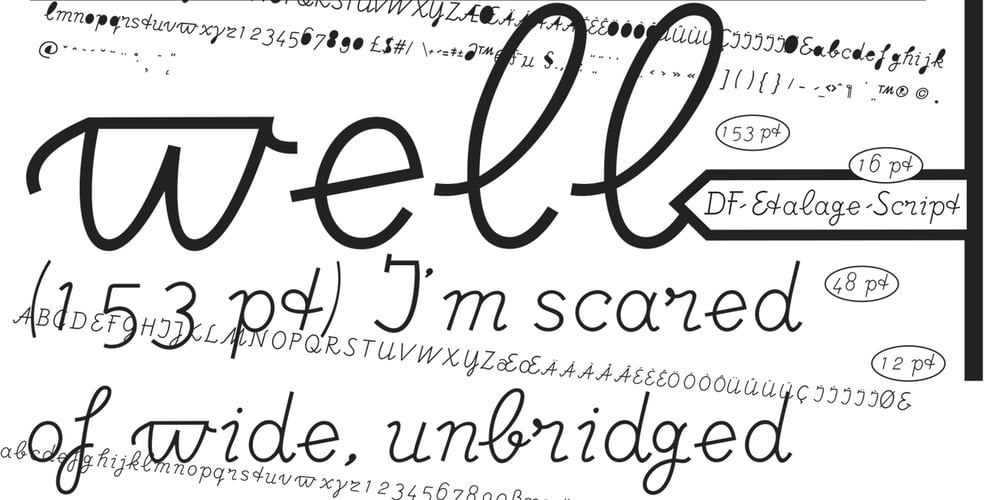
DF Etalage Script Font Family was designed by Ko Sliggers and published by Dutchfonts. DF Etalage Script contains 1 styles and family package options. Etalage Script was drawn for the first time in the year 2000, based on a early 20th century lettering stencil with what farmer Boelema at Lalleweer stenciled his grainsacks. Eventually the script letter was developed as a typeface with a wink to the ‘lost’ display types for the ‘display window’ of graphic designer Ariënne Boelens, who in exchange made the website www.lalleweer.nl. What originated the Ariënne should be evident now.